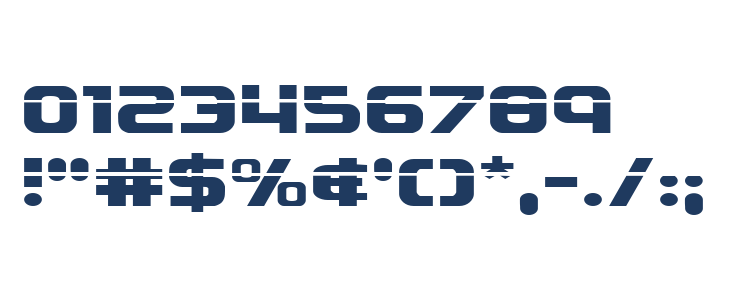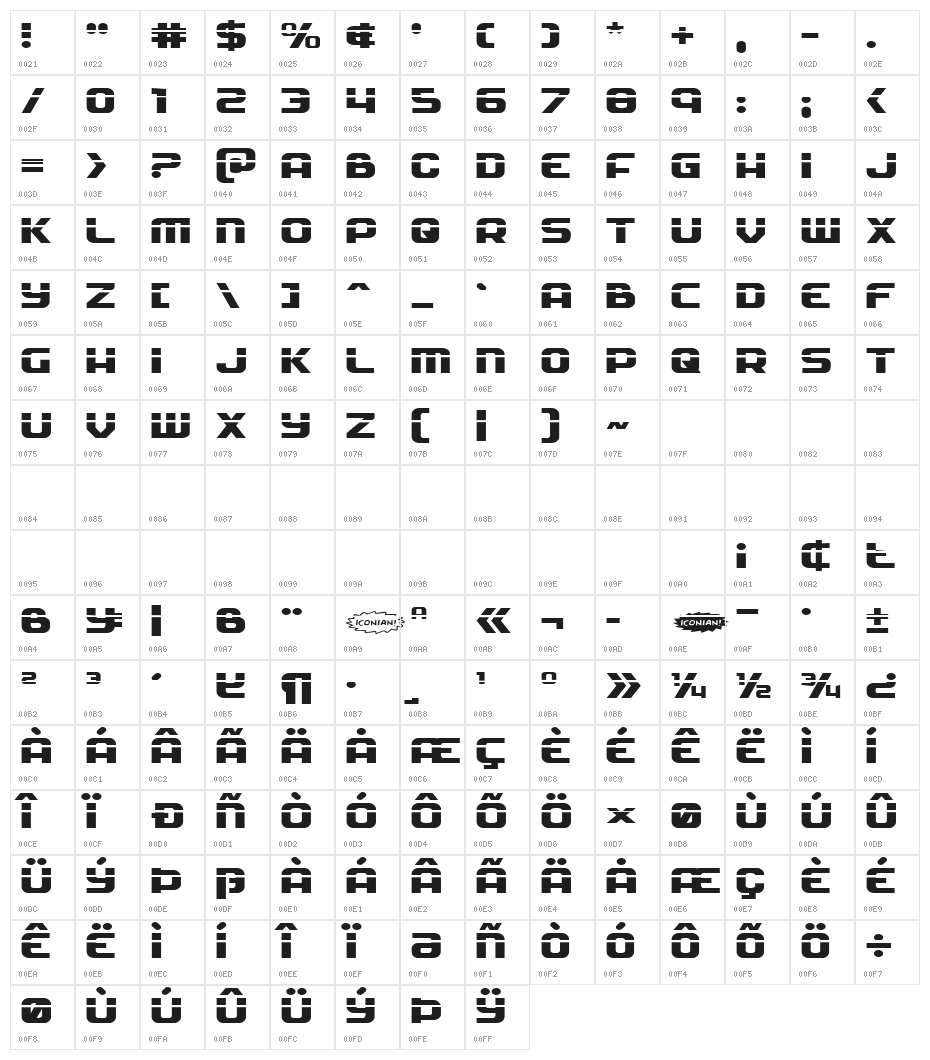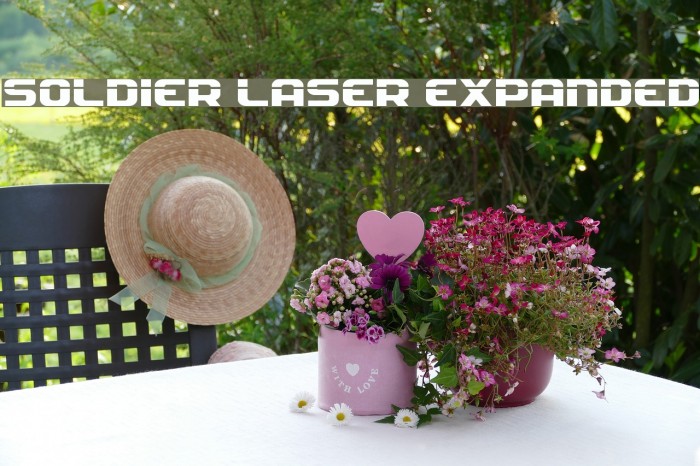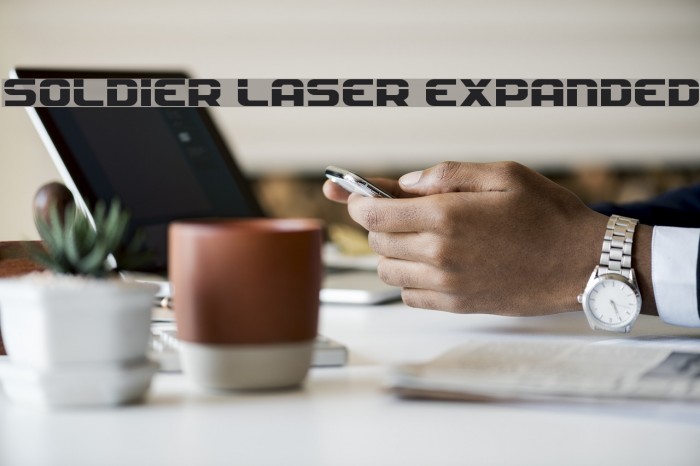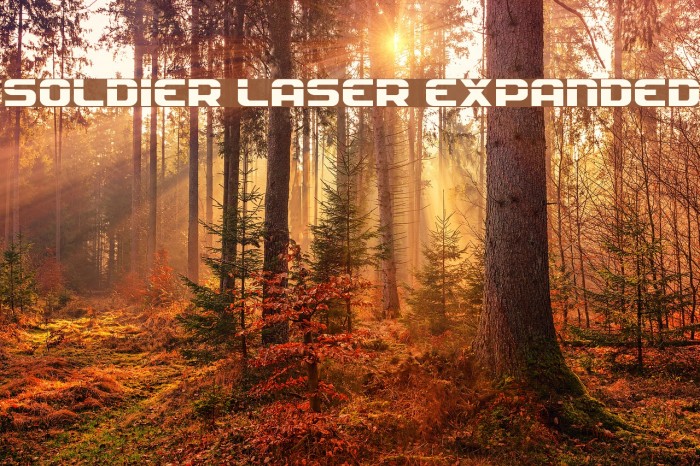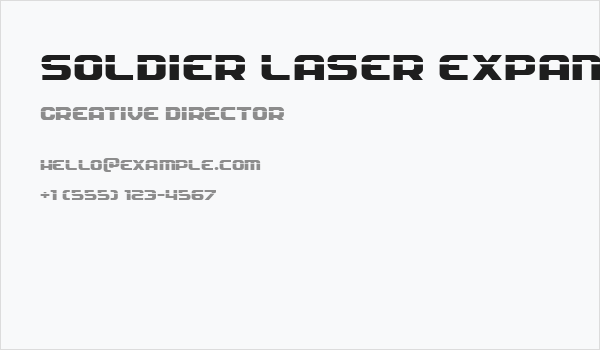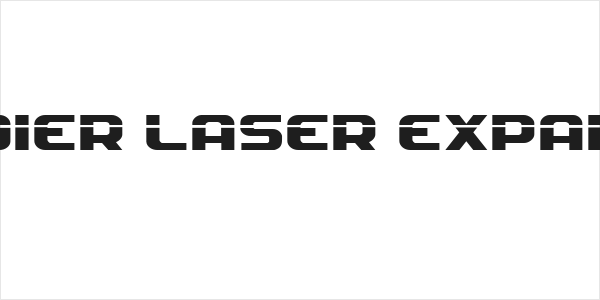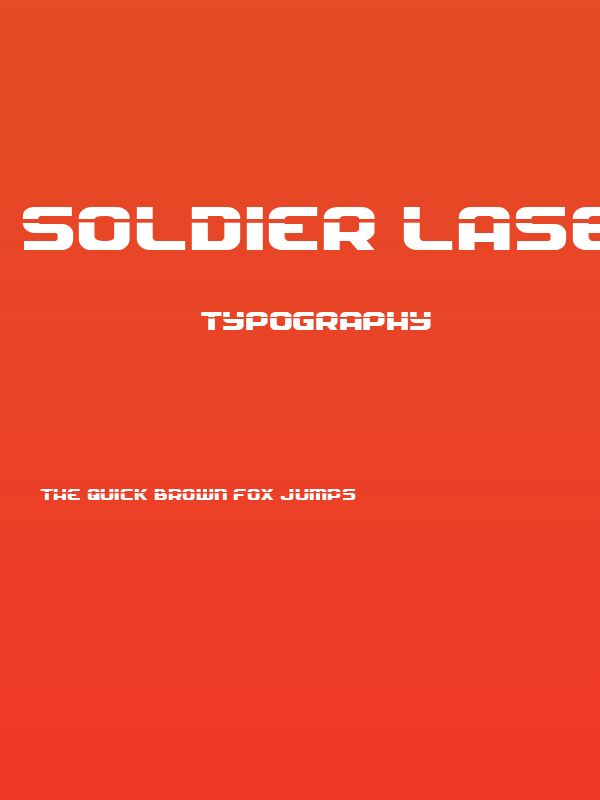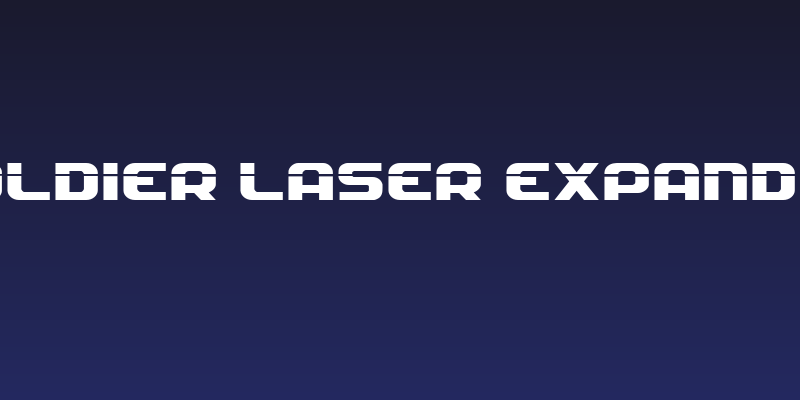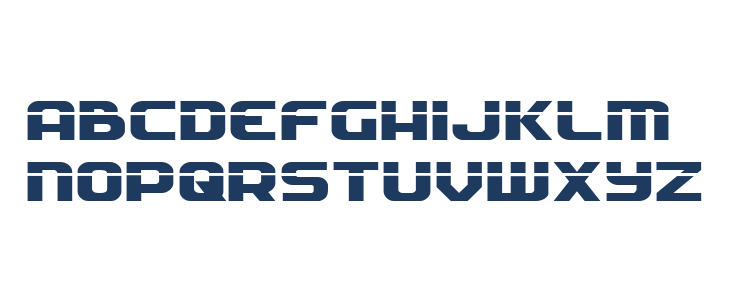
Soldier Laser Expanded Font
Soldier Laser Expanded Description
This font features a bold and futuristic design with a distinctly geometric and angular appearance. The characters are expanded and have a strong presence, making them ideal for attention-grabbing headlines or titles. The use of sharp edges and consistent line thickness gives it a modern, industrial feel. The uppercase and lowercase letters maintain uniformity in style, while the numerals and special characters complement the overall aesthetic. This font is well-suited for projects that require a bold statement, such as sci-fi themes, technology branding, or video game titles.
Proposed ProjectsIdeal for sci-fi themes, technology branding, video game titles, and futuristic designs.